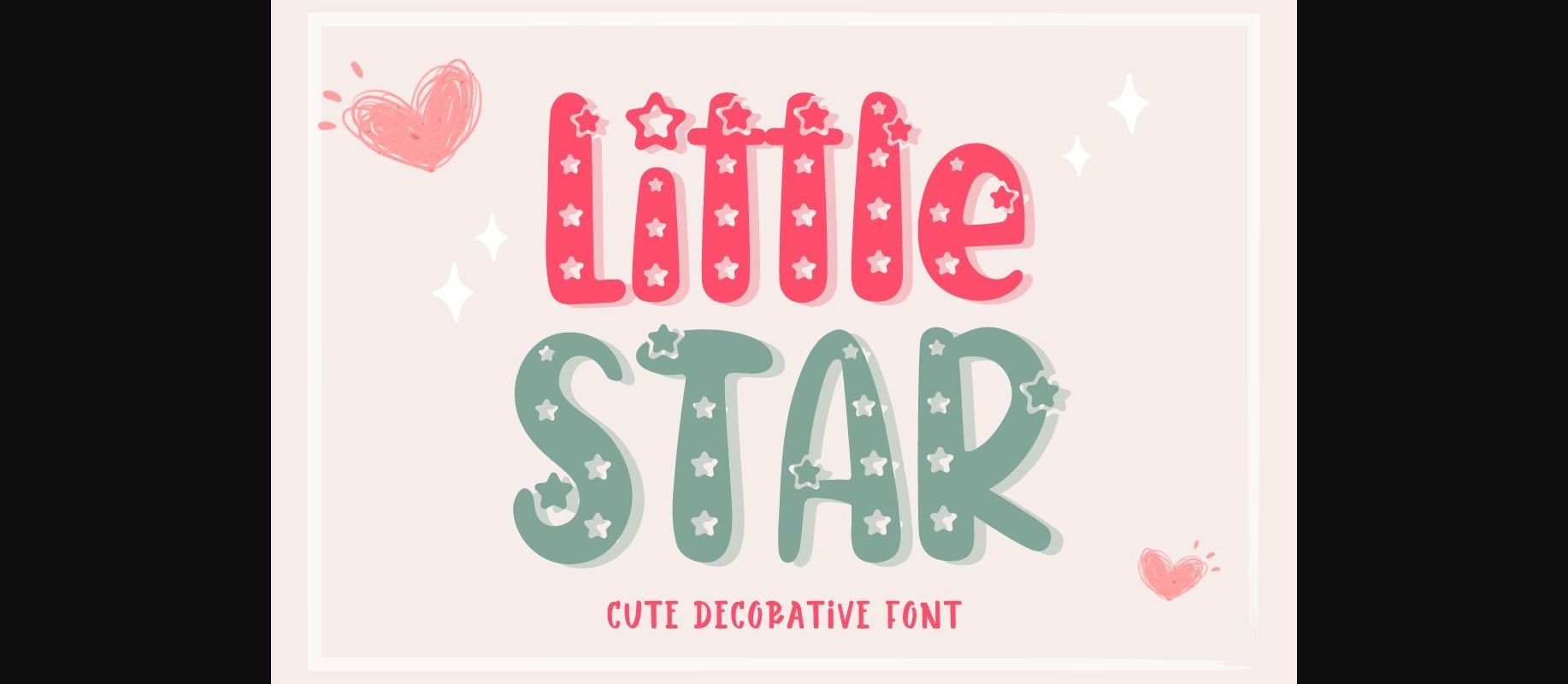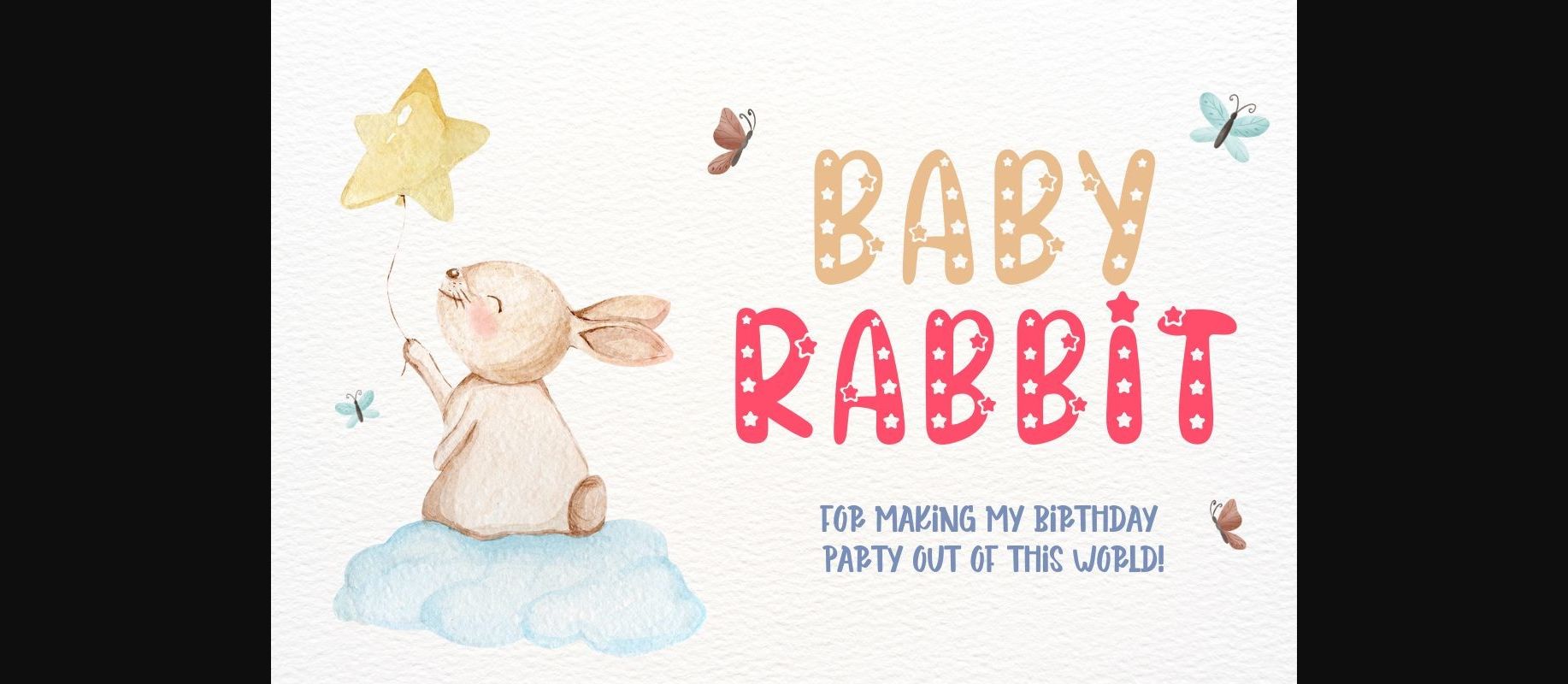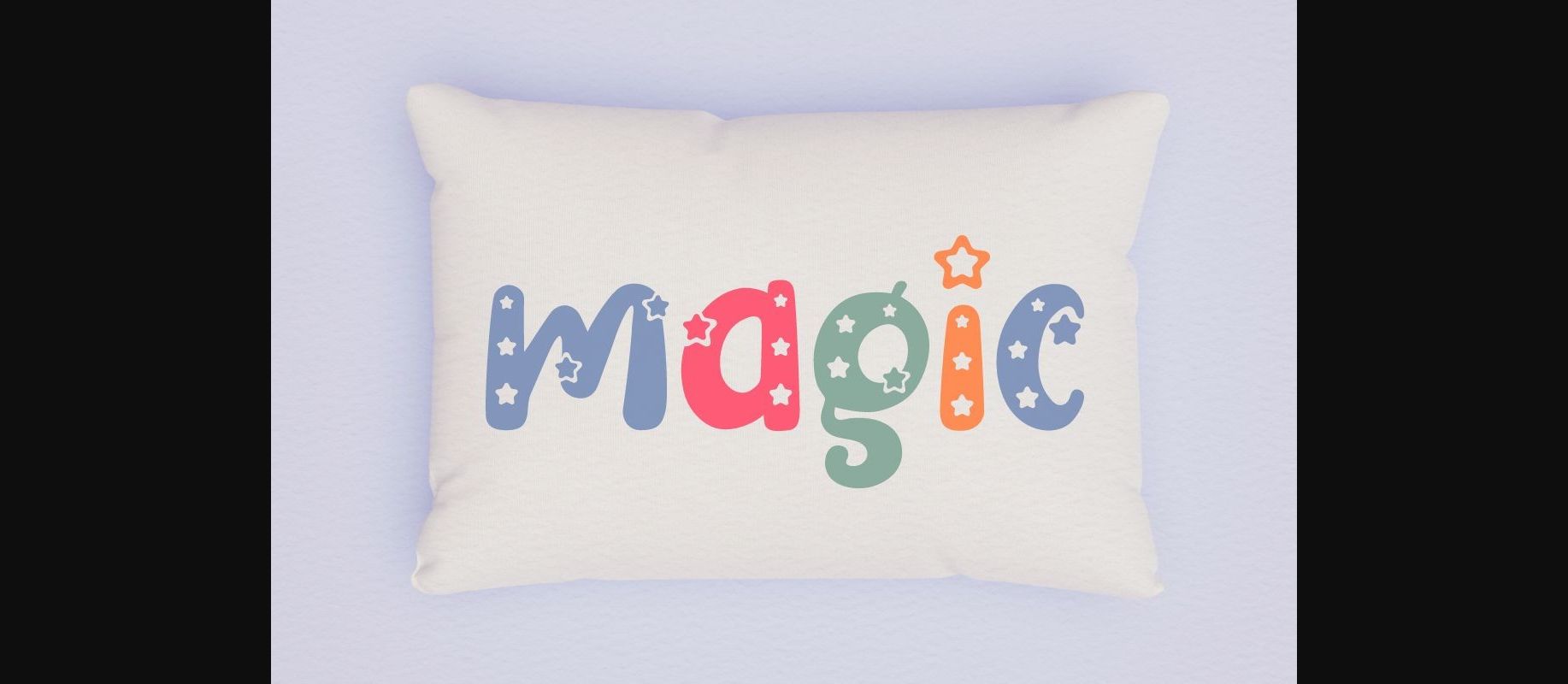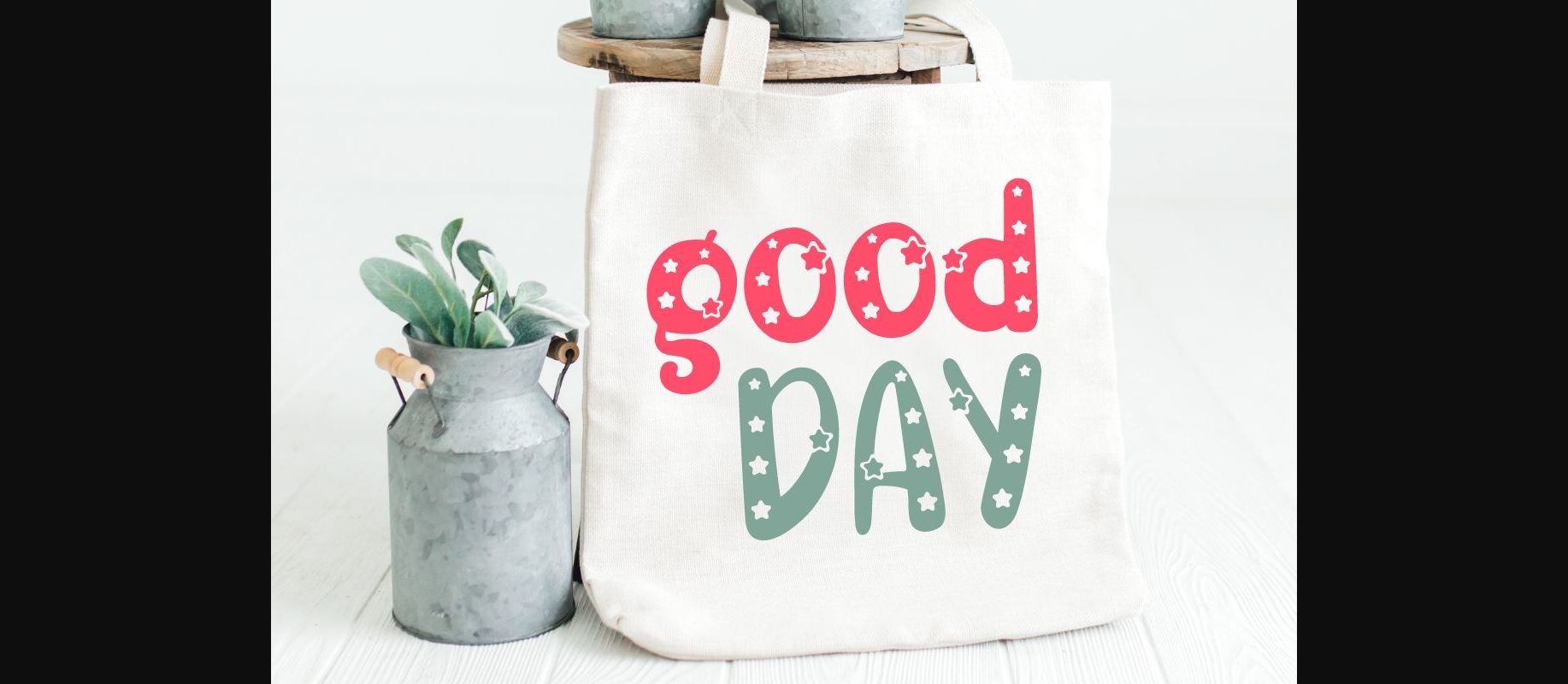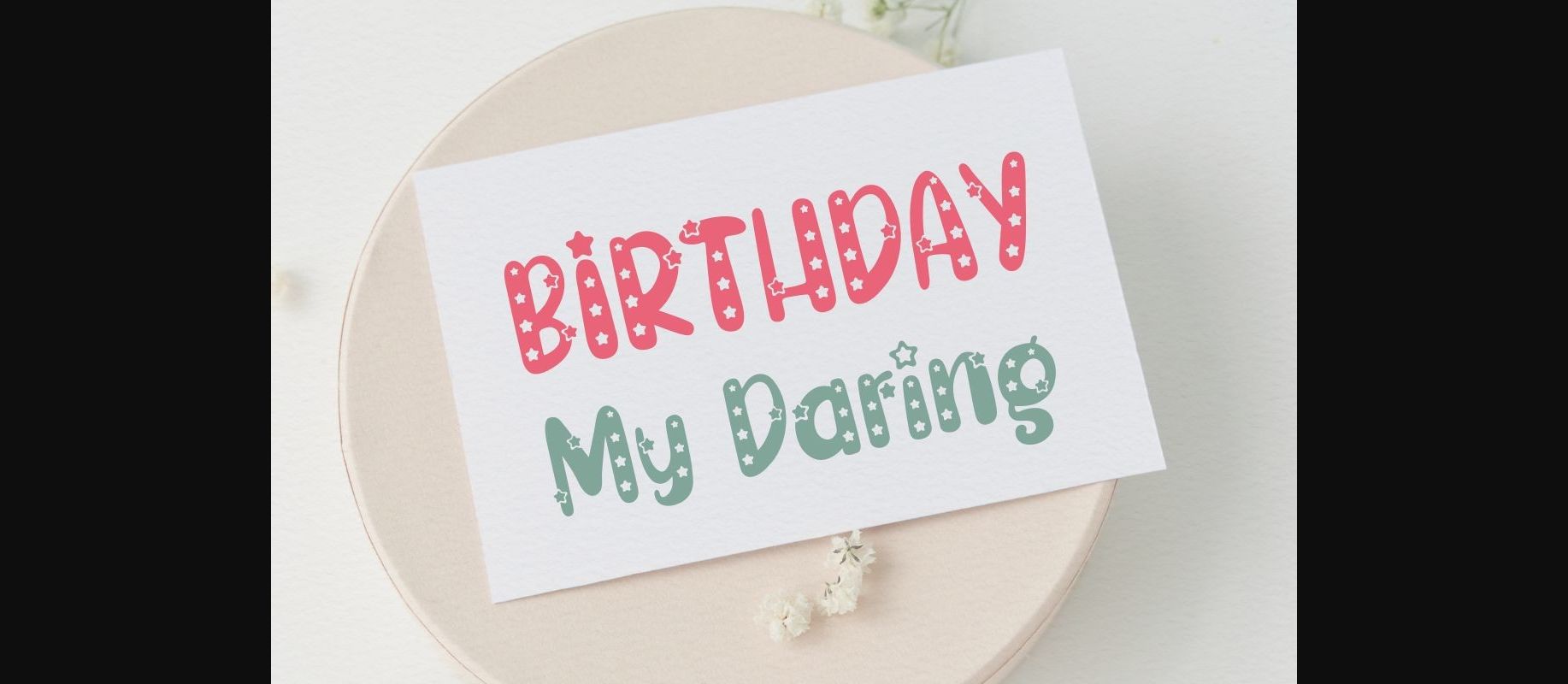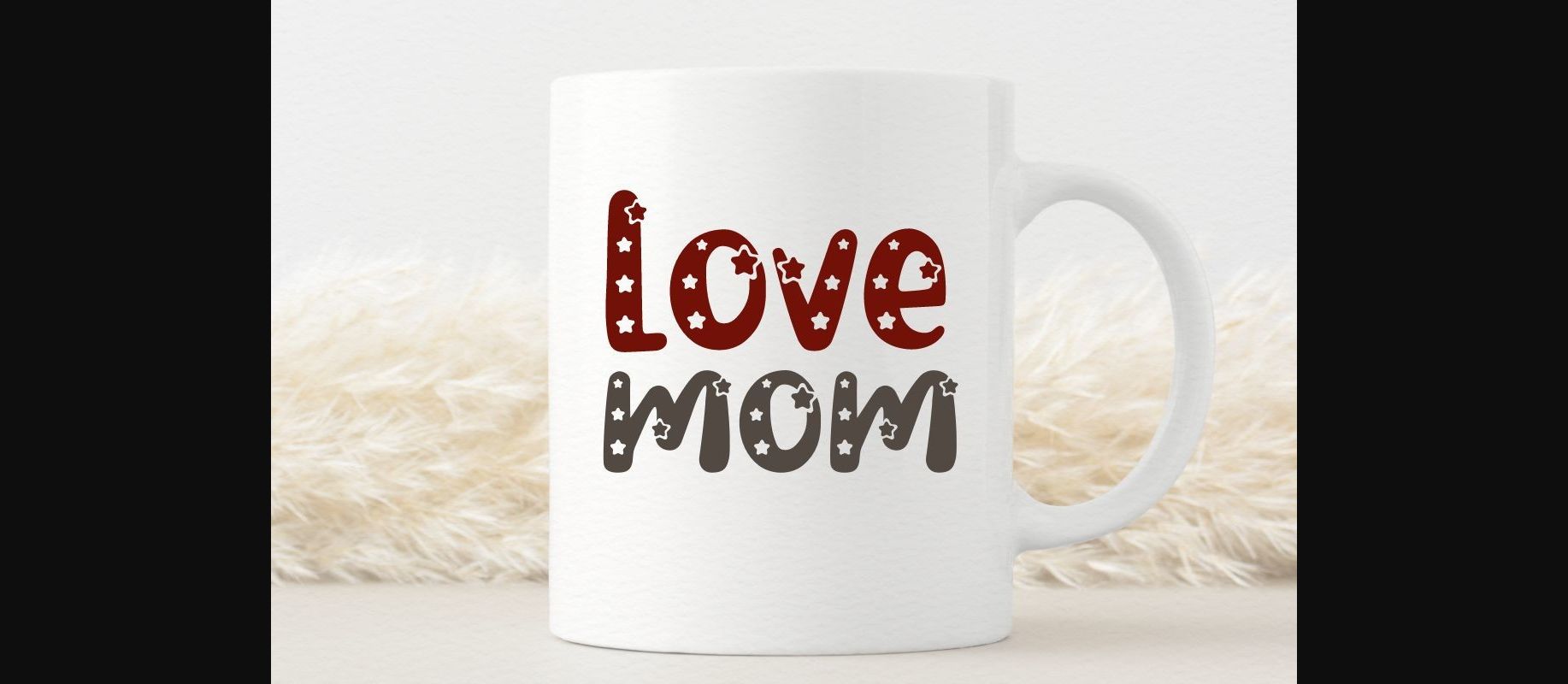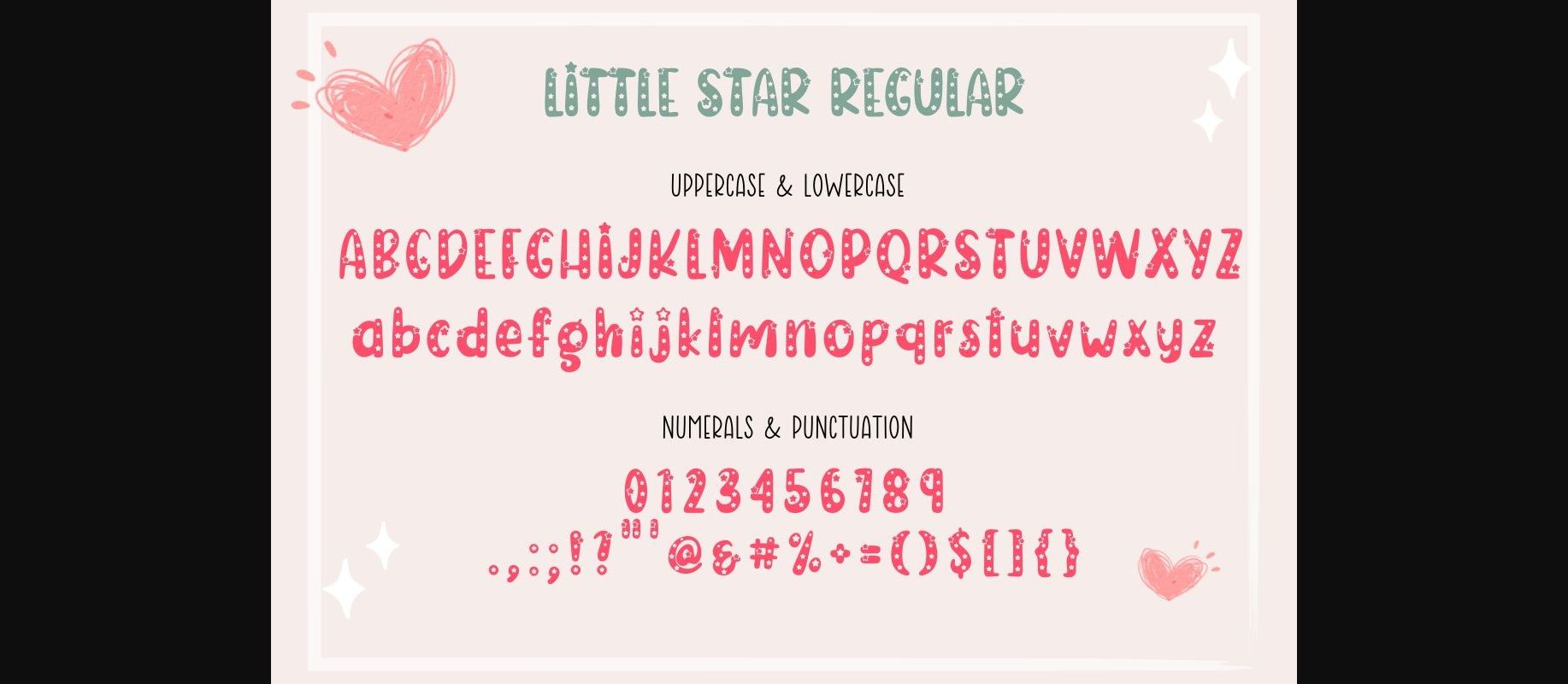
Little Star Font
About Little Star Font
Little star is a cute decorative font is perfect for adding a touch of whimsy to your projects. It uses little stars combined with handwritten fonts to create a unique and stylish look. Perfect for creating a wide variety of new designs to match products such as banners, content, mugs, cards, shirts, stationery, social media posts, and more!